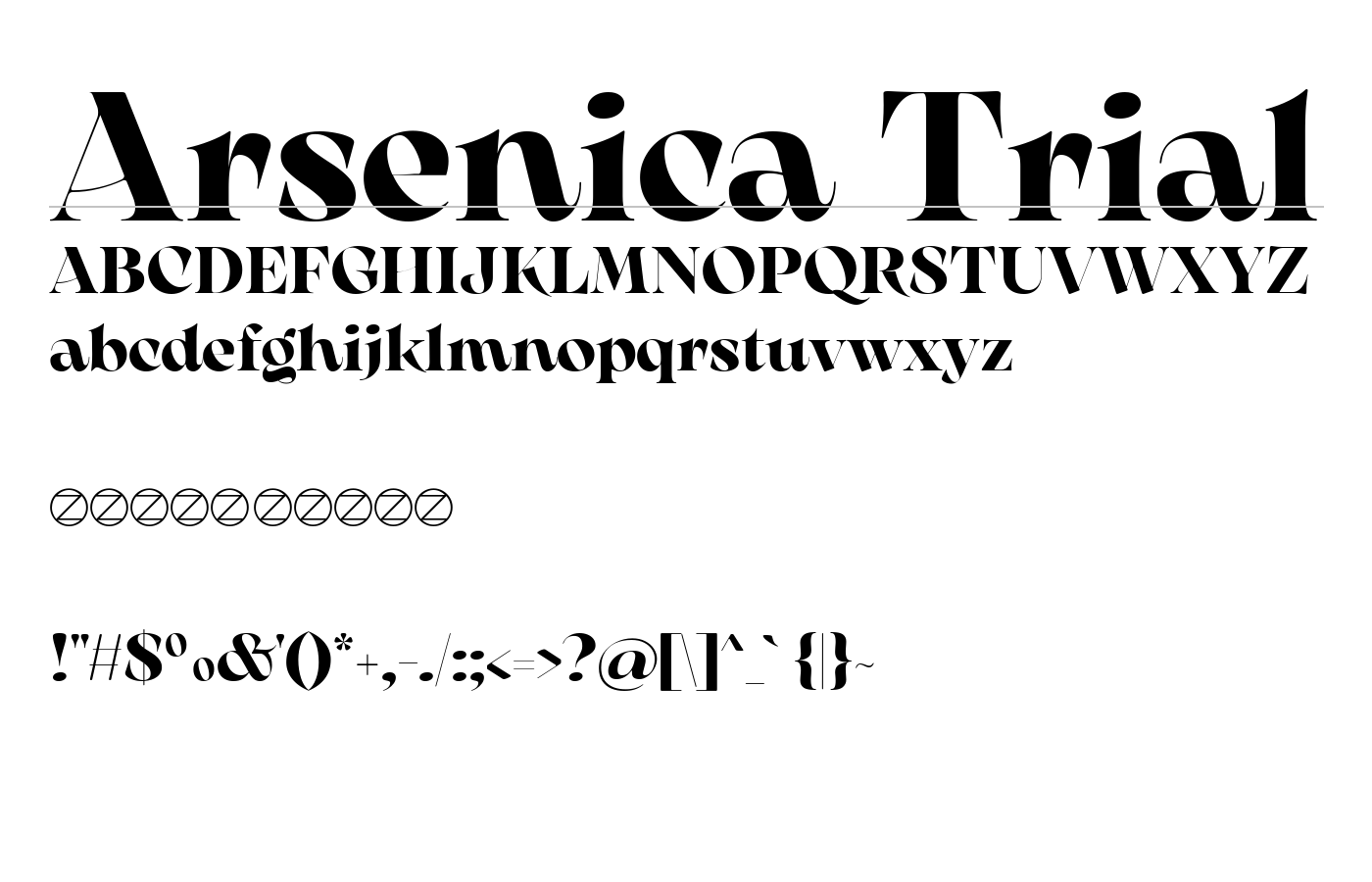
Arsenica Trial is a striking serif font that blends bold weight with elegant high-contrast strokes, featuring sharp and angular details that give it a sophisticated yet modern feel. Its distinctive letterforms, such as the unique curves in the lowercase "a" and the stylized ampersand, make it perfect for fashion or luxury branding, editorial headlines, and impactful logos where a bold, refined statement is desired. This font stands out in large sizes, delivering a sense of prestige and contemporary style ideal for upscale and creative design projects.
Arsenica Trial Font
About Arsenica Trial Font
| Font family | Arsenica Trial Font |
| Designer | Francesco Canovaro |